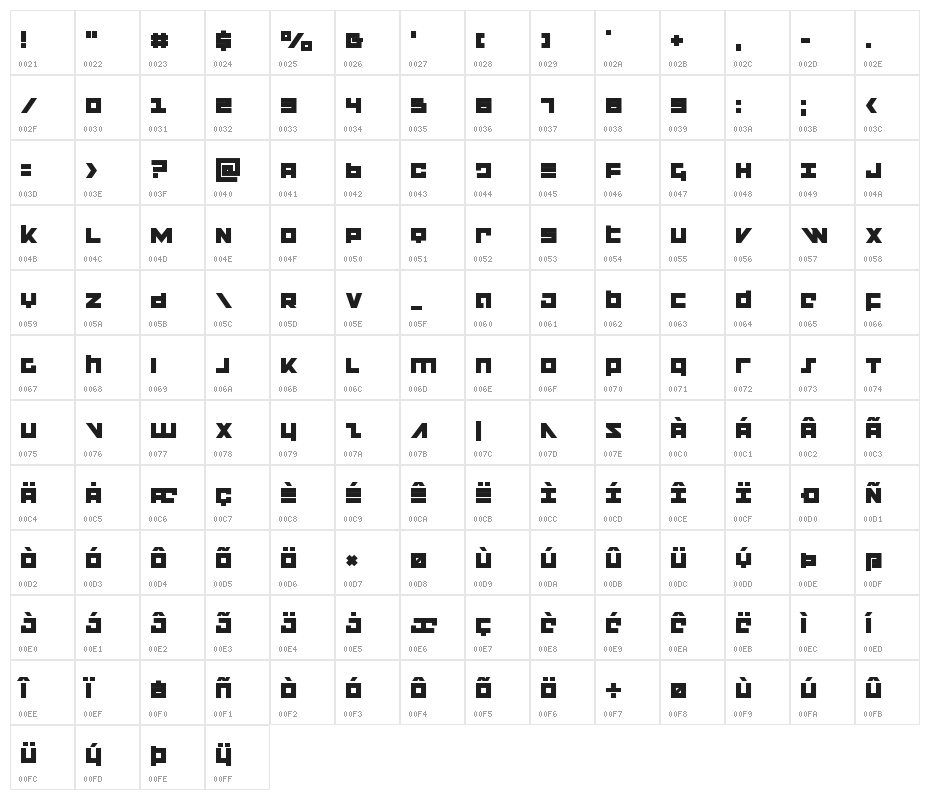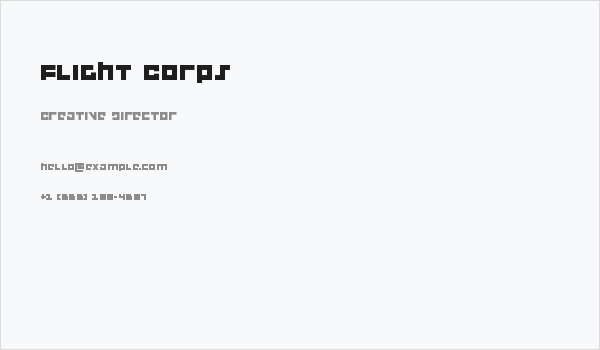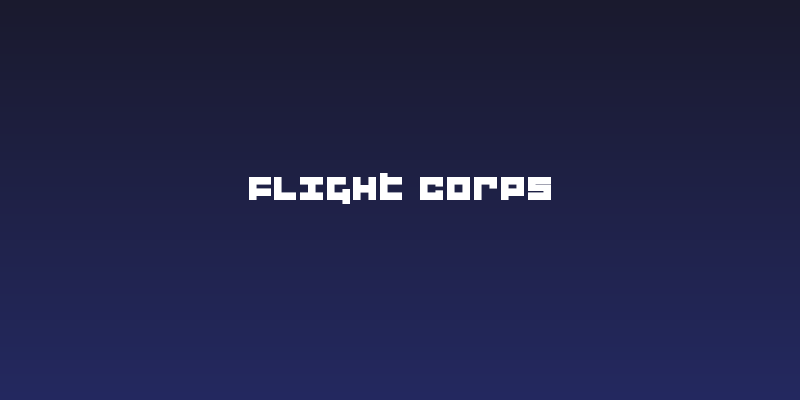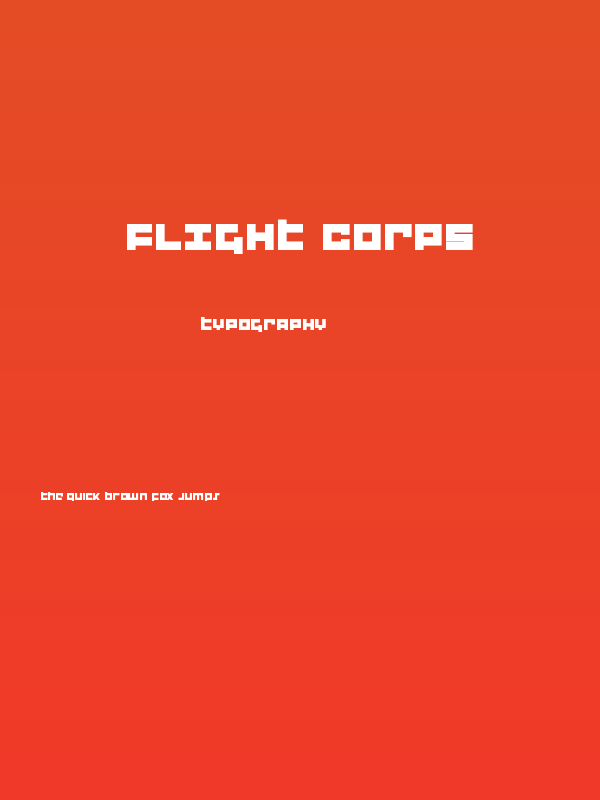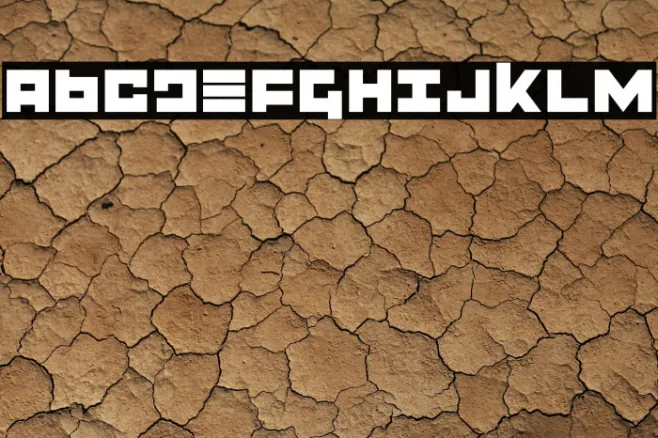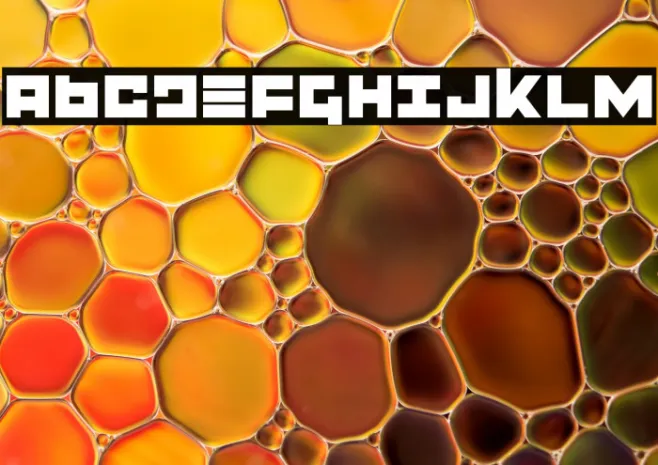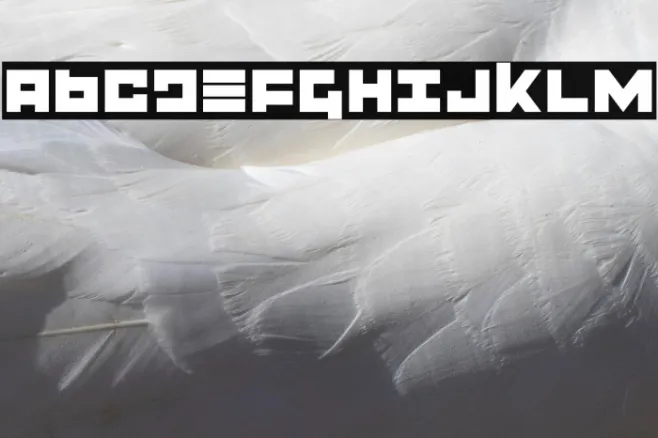
Flight Corps Font
Flight Corps Description
This font features a bold and geometric design with strong, angular lines and a futuristic aesthetic. The characters are constructed with a blocky, modular style, giving them a distinct, mechanical appearance. The uppercase and lowercase letters maintain a consistent width, enhancing the uniformity and balance of the typeface. The numerals and special characters follow the same design principles, ensuring a cohesive look across all glyphs. The font's sharp edges and solid structure make it highly legible and impactful, suitable for attention-grabbing headlines and modern design projects.